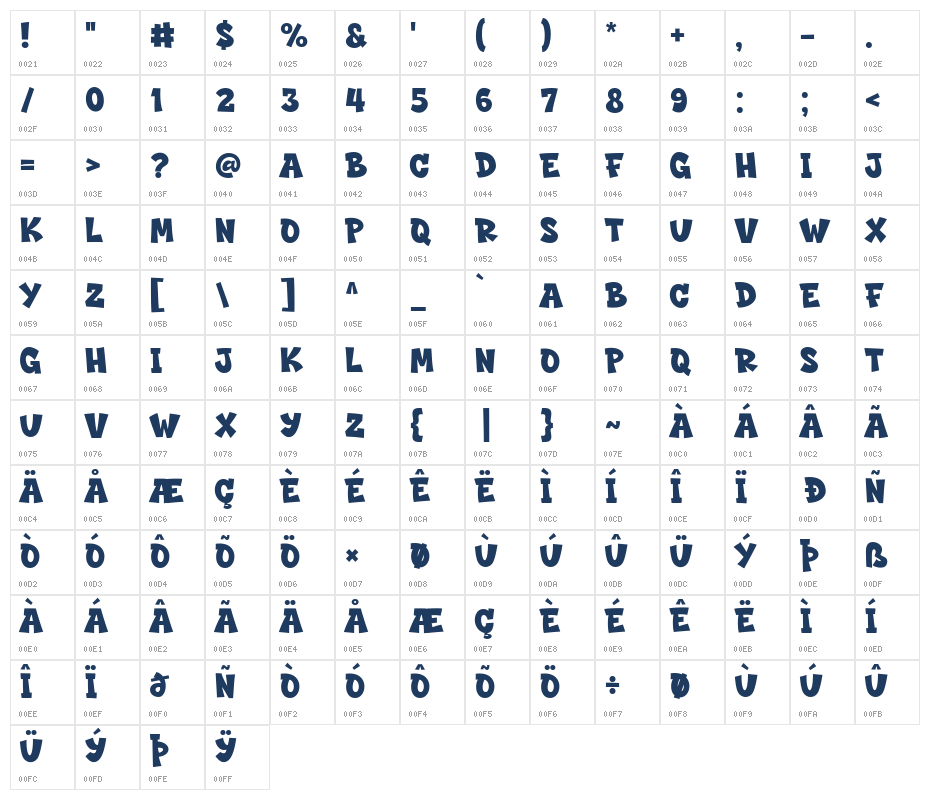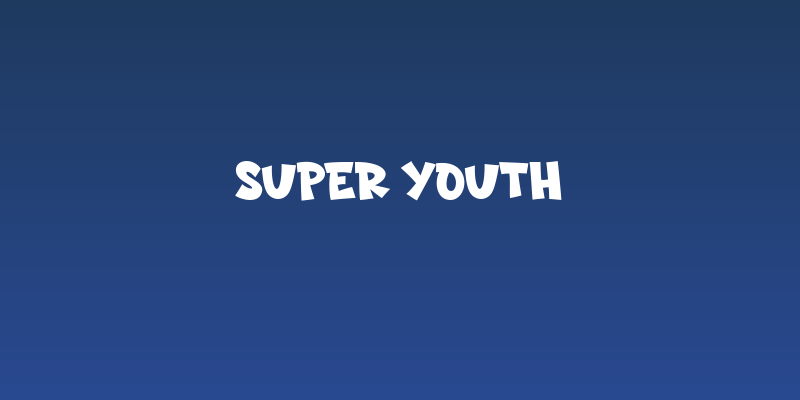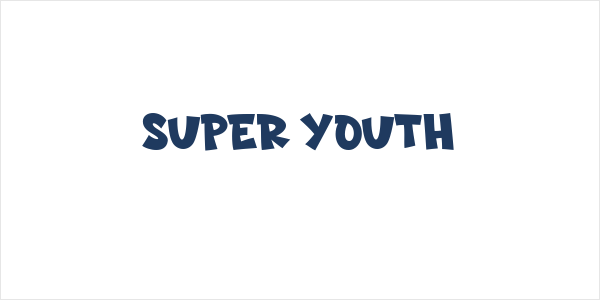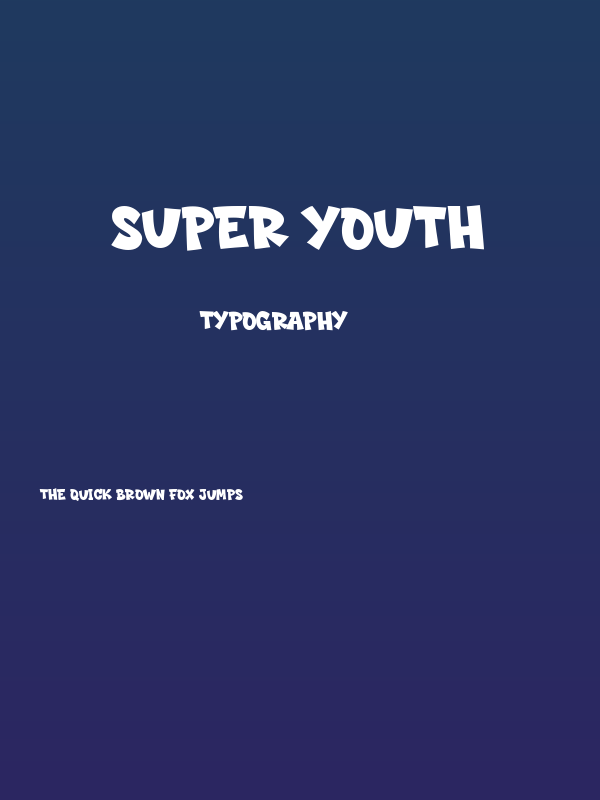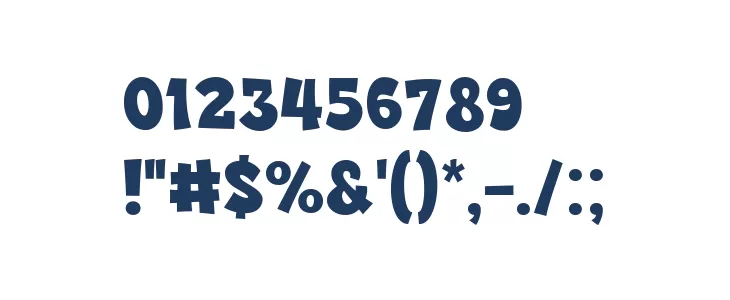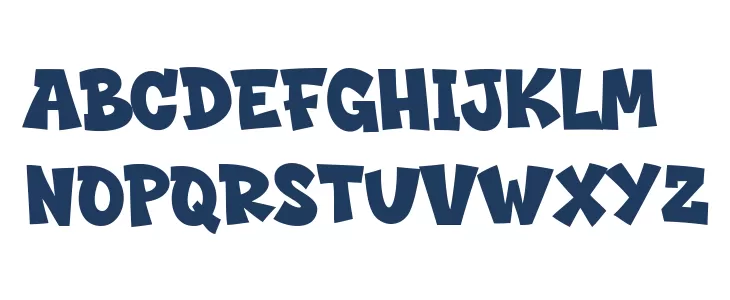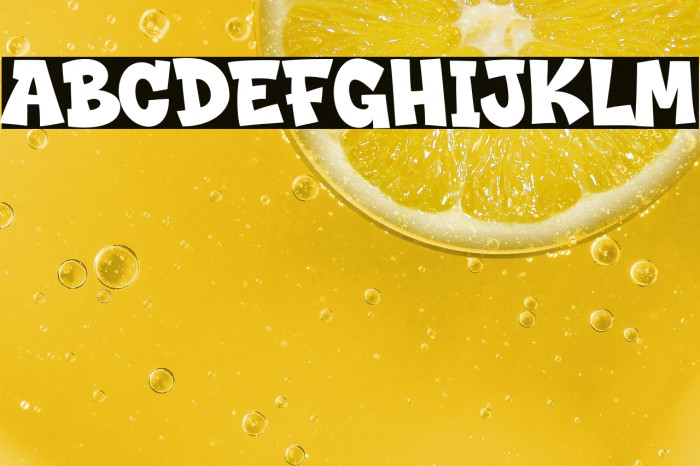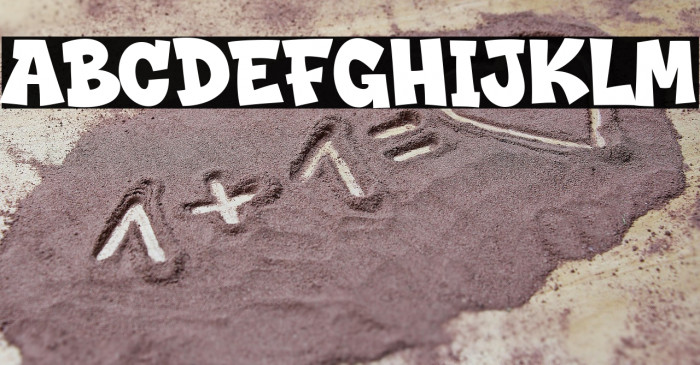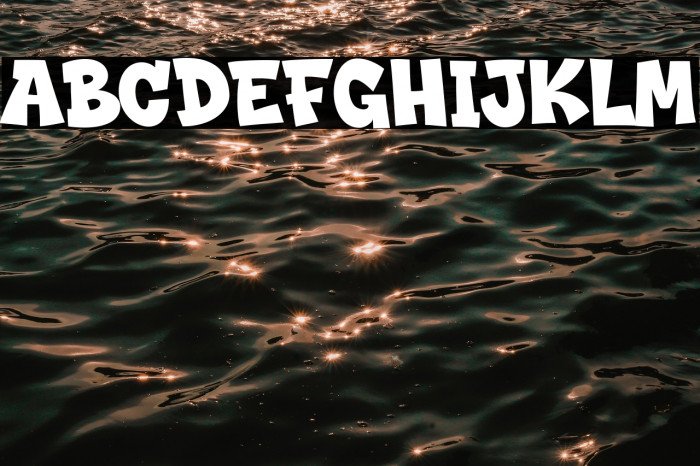
Super Youth Font
Super Youth Description
Bold, playful, cartoonish display font with irregular, chunky letterforms.
| Overall Style | Playful, Cartoonish, Bold |
| Use Case | Headlines, Posters, Logos, Children's media |